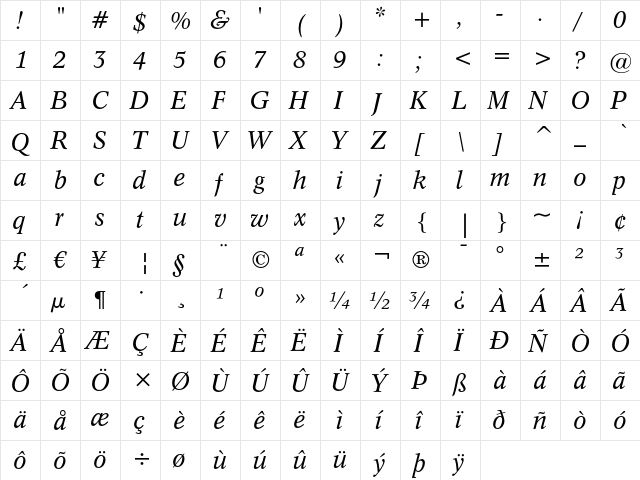
Dutch 809 Italic
Design Context for Dutch 809 Typeface
Dutch 809 takes a measured approach to typography — its balanced proportions and neutral character make it a reliable workhorse for both digital and print work. Its italic angle brings a sense of urgency and motion to the letterforms.
Pro Tip: Try Dutch 809 for annotation and caption copy alongside an upright companion — the contrast in angle creates a dynamic but ordered typographic system.